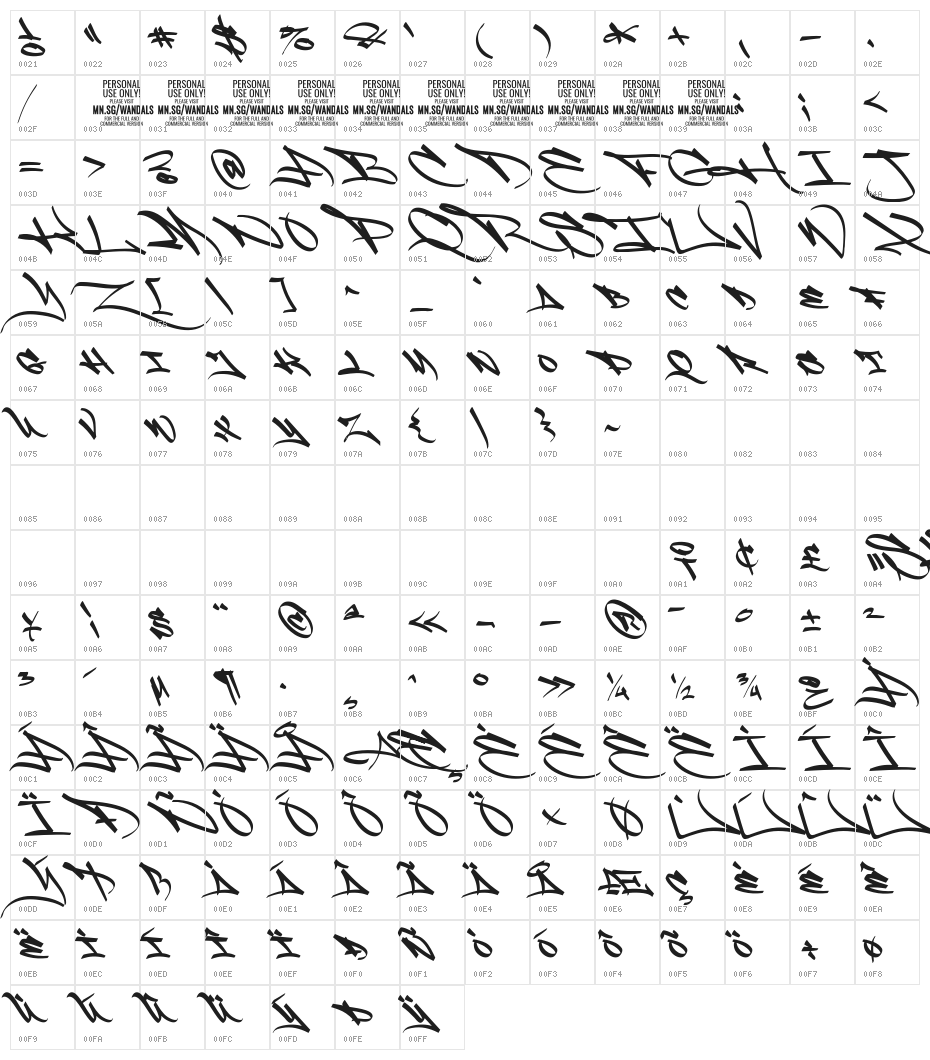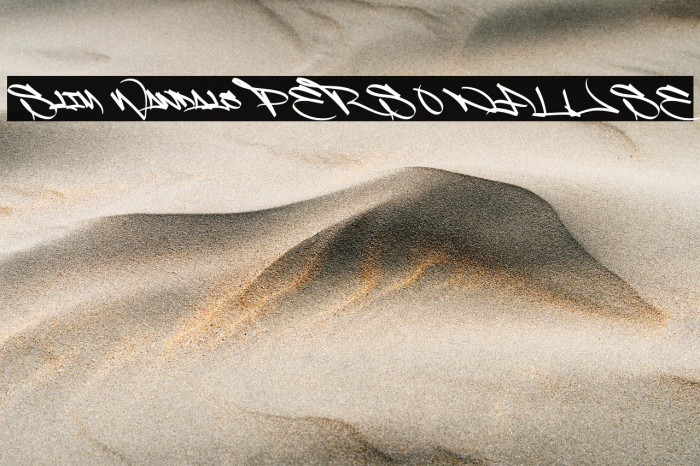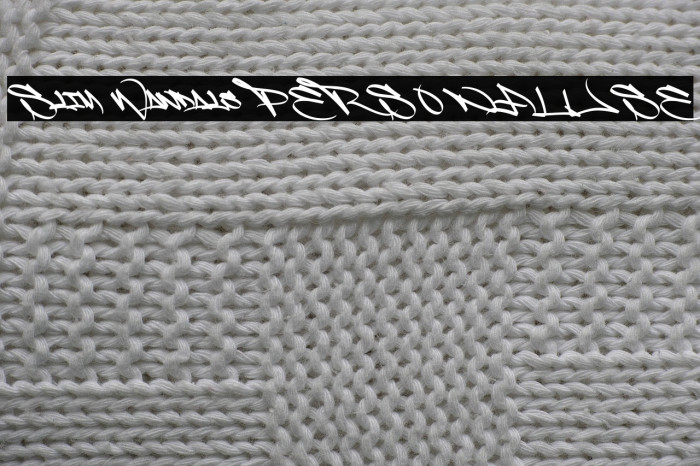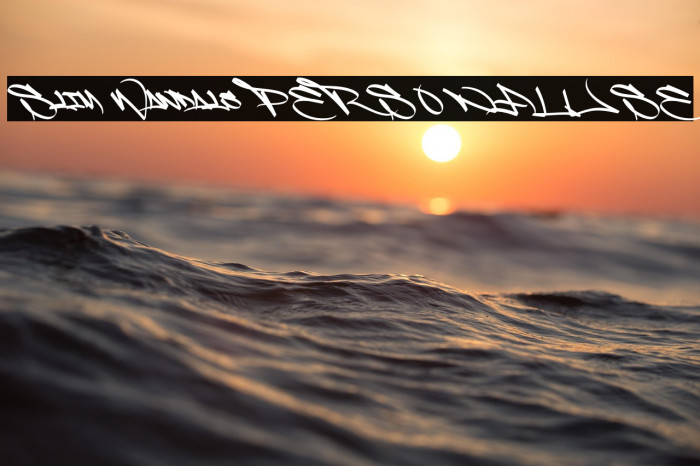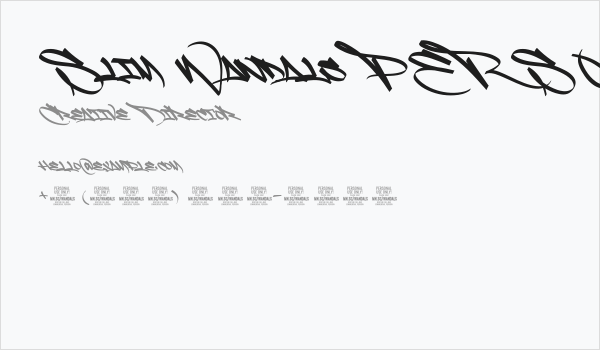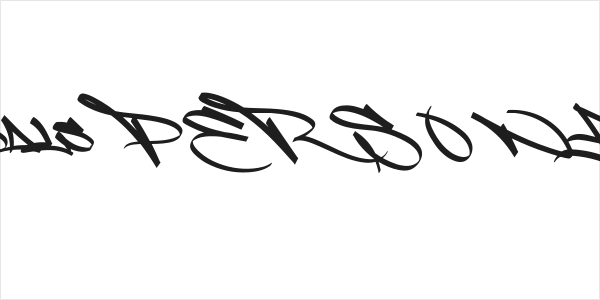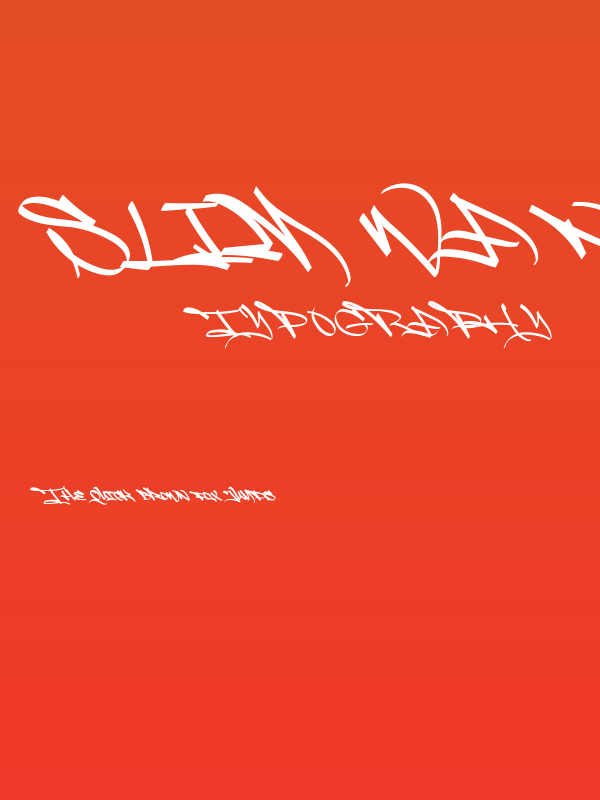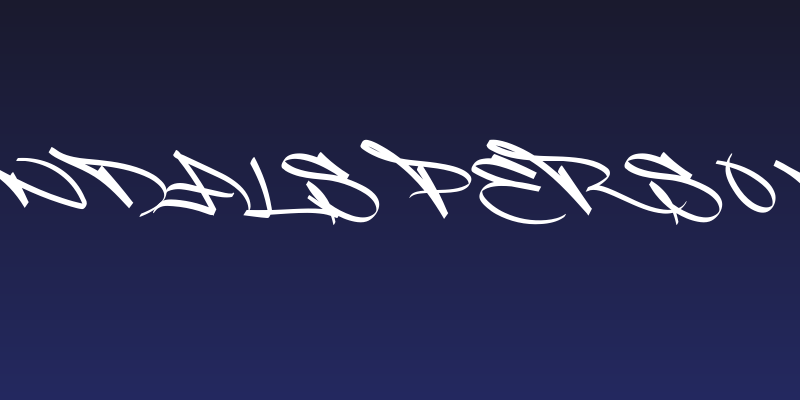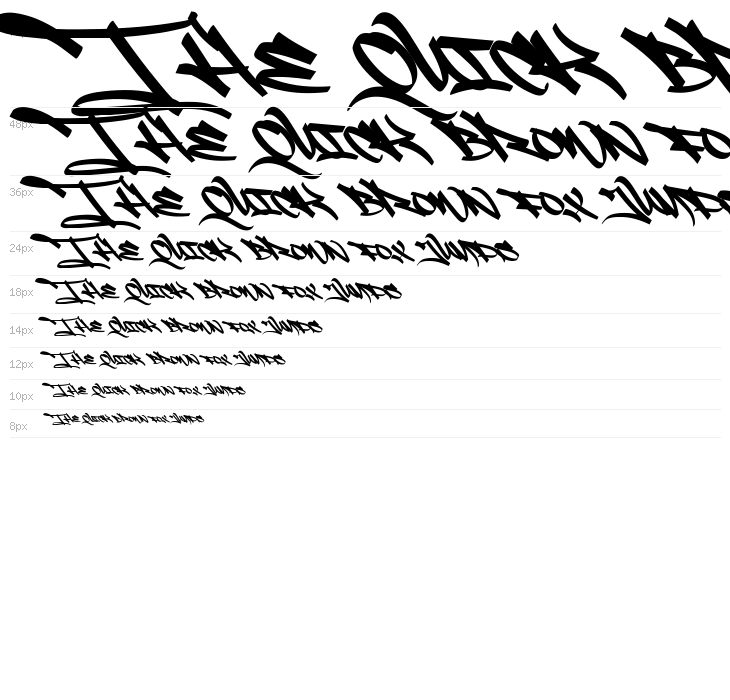
Slim Wandals PERSONAL USE Font
Slim Wandals PERSONAL USE Description
This font features a bold and dynamic graffiti-inspired style, characterized by its sharp angles and fluid, sweeping lines. The uppercase and lowercase letters are highly stylized, with exaggerated curves and strokes that give the font an energetic and rebellious feel. The numbers and special characters maintain this aesthetic, ensuring consistency across all glyphs. The overall appearance is edgy and urban, making it ideal for projects that require a strong visual impact.
| Overall Style | Modern, Urban |
| Proposed Projects | Ideal for street art designs, urban-themed posters, music album covers, and edgy branding projects. |